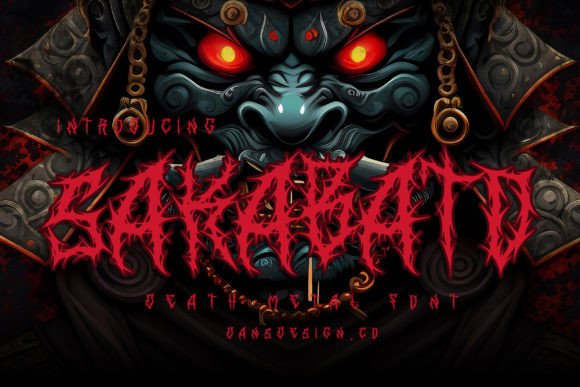
Step into the world of Sakabato Metal Blackletter Horror, an exquisite creation by Dansdesign, where darkness meets elegance. Experience the thrill of a font that screams individuality and style. Dive into the depths of this font's sinister charm and feel the power of your words come alive.
Crafted with the utmost precision, Sakabato Metal Blackletter Horror is not just a font; it's a declaration of boldness. Its intricate details and sharp edges exude an aura of mystery and allure, captivating your audience from the very first sight. Whether you're designing music logos, creating spine-chilling posters, or exploring the realms of tattoo business branding, this font will leave an unforgettable mark.
Unleash your creativity and let your designs take center stage with Sakabato Metal Blackletter Horror. Its versatility knows no bounds, allowing you to craft designs that speak volumes. From vintage designs that evoke nostalgia to edgy logos that command attention, this font adapts seamlessly to your vision.
With Sakabato Metal Blackletter Horror by your side, you hold the key to unlocking your creative potential. Embrace the darkness, let your imagination soar, and witness the transformation of your designs into masterpieces.
Immerse yourself in the world of Sakabato Metal Blackletter Horror and let the darkness inspire you. Dare to be different, embrace the unconventional, and let your designs leave a lasting impression.